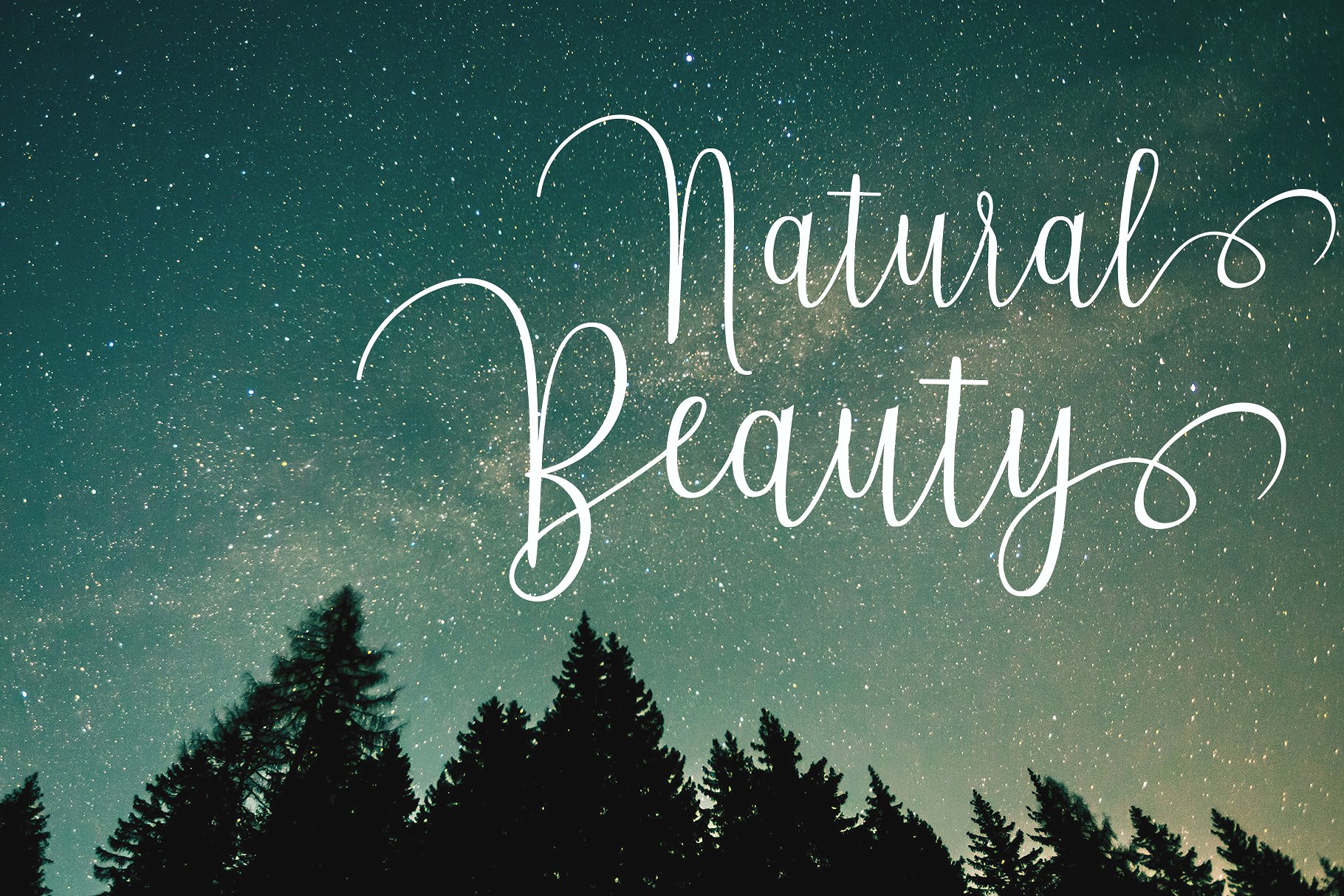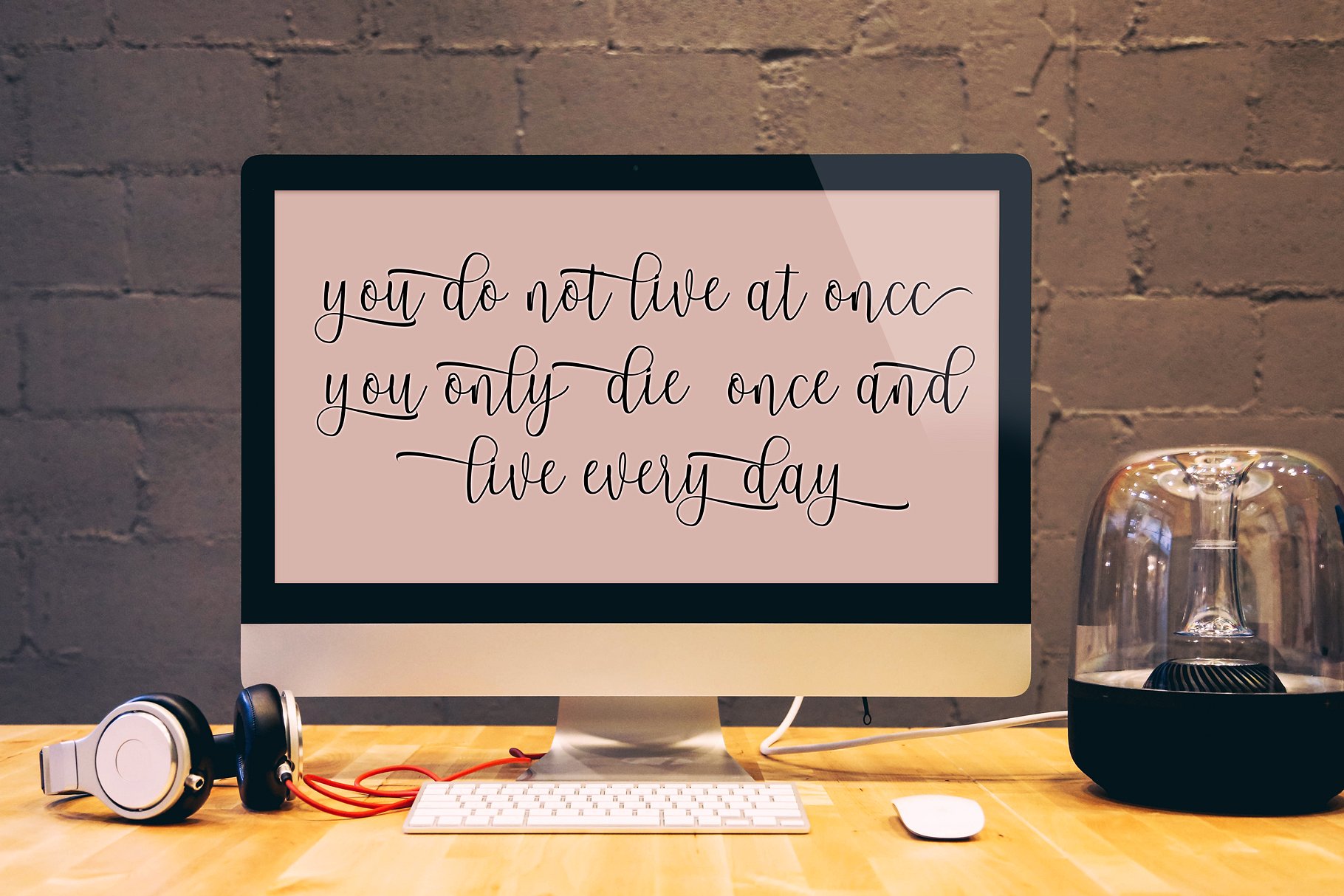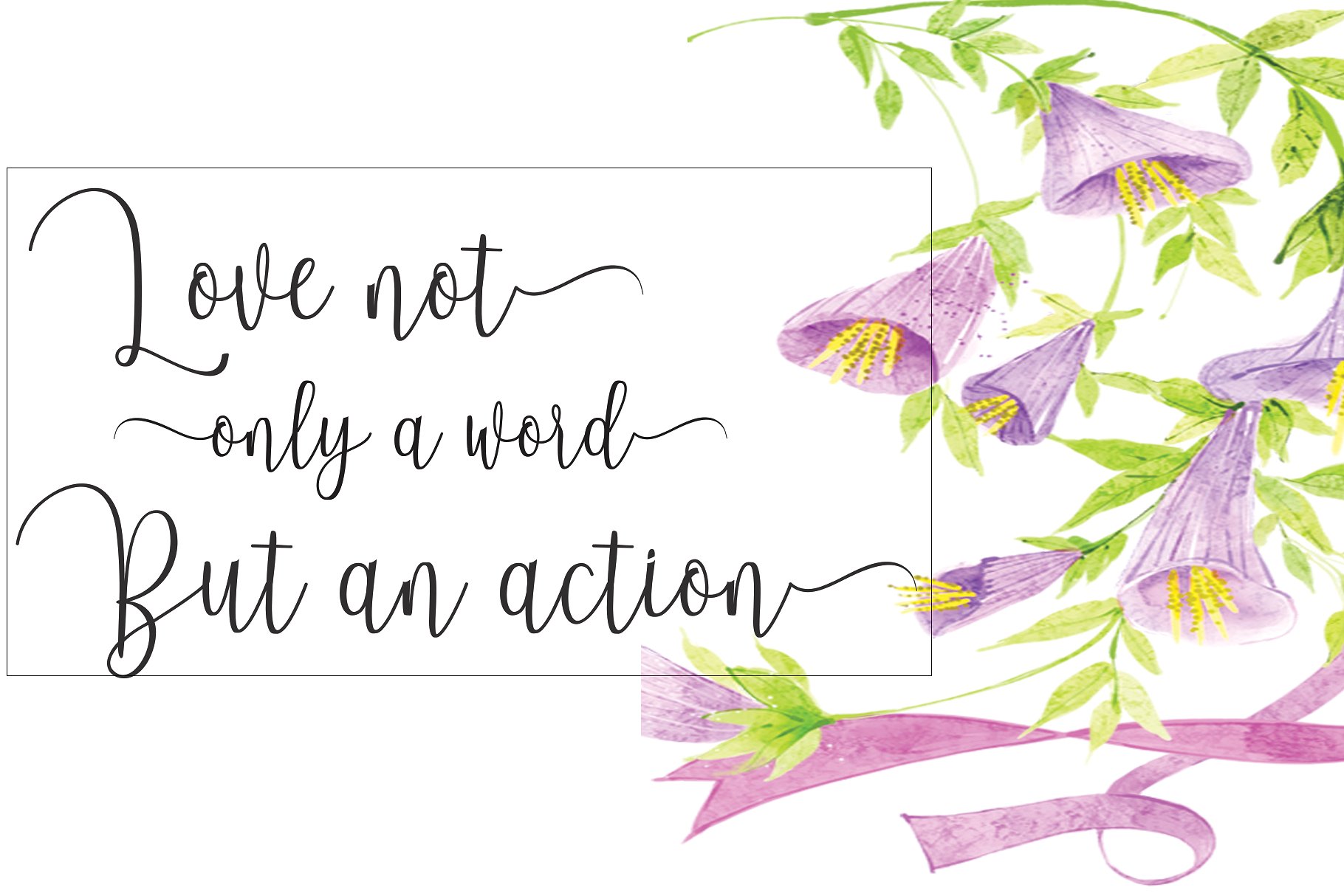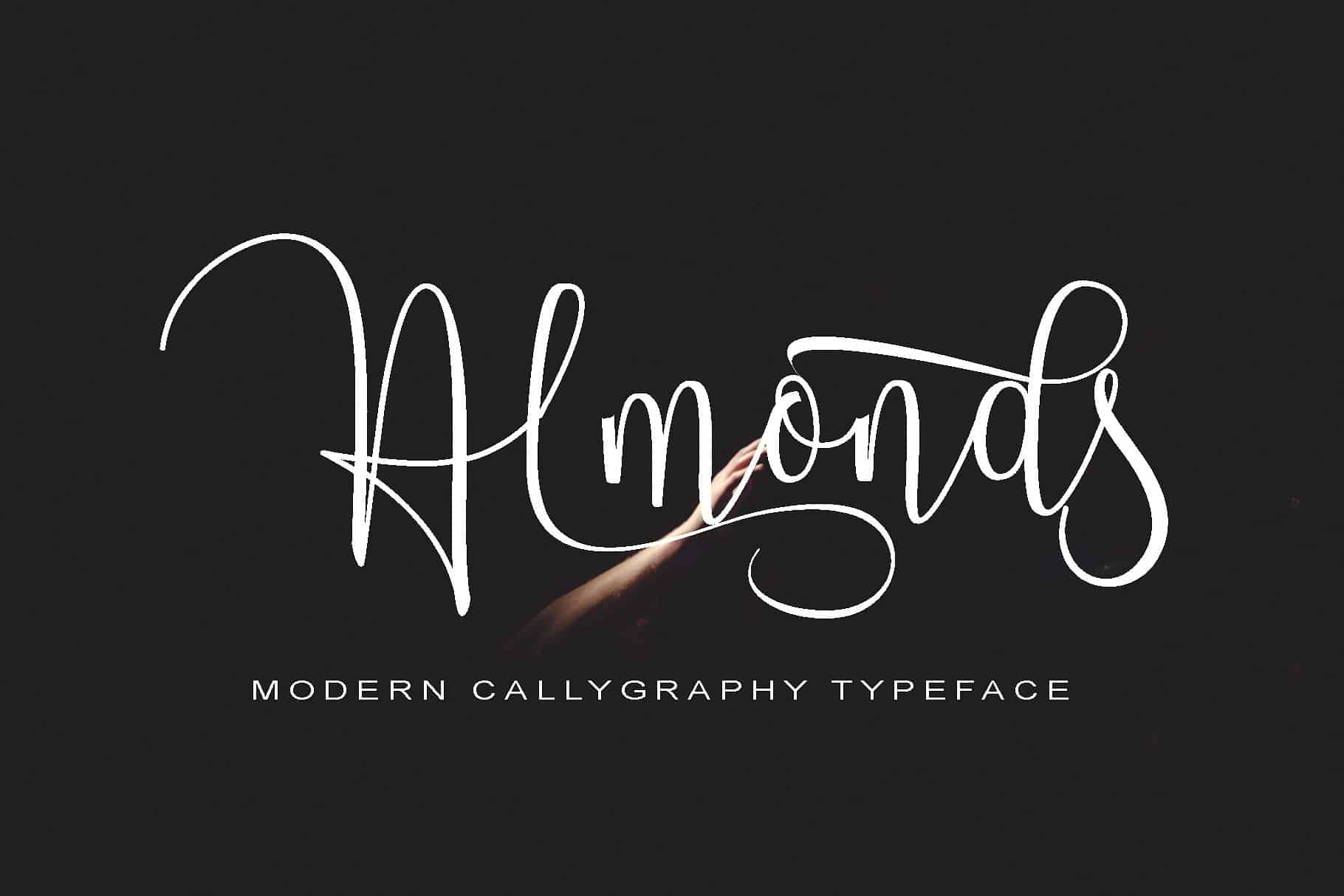
Almonds Script Font
A modern calligraphy typeface. This font is great for your creative project such as logos, posters, and etc. Introducing Almonds Font. Almonds a font work that is purely handwritten, has its own characteristics with the style of monoline. this is perfect for invitations, signatures, blogs, social media, business cards, product brands.